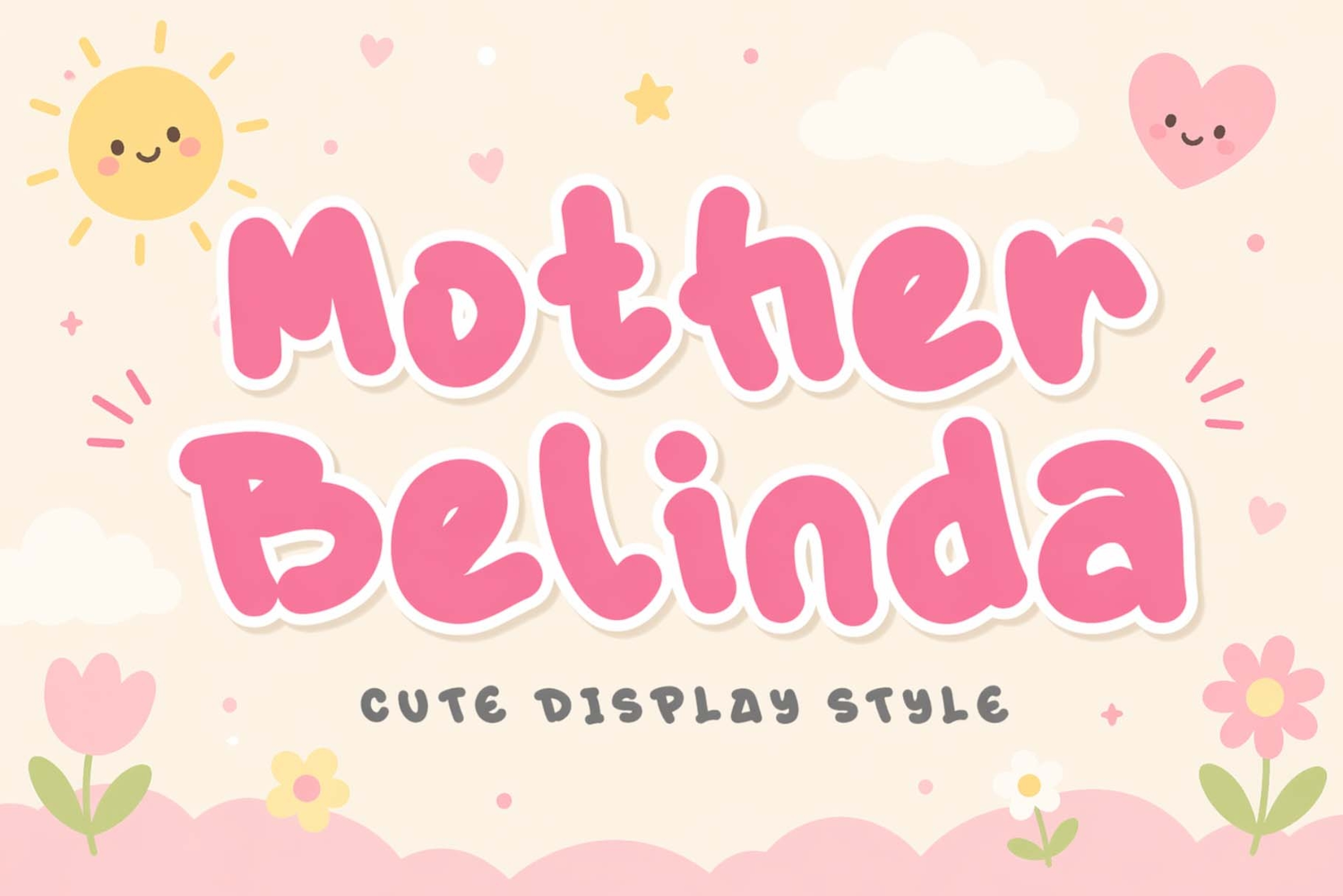
"Mother Melinda" is a beautiful and cute display font. It features uppercase and lowercase letters, numerals, punctuations, and multilingual support. It's perfect for Mother's Day, Teacher's Day, summer, spring, holidays, vacations, comics, magazines, cartoons, social media, business branding, back to school, birthdays, and more.